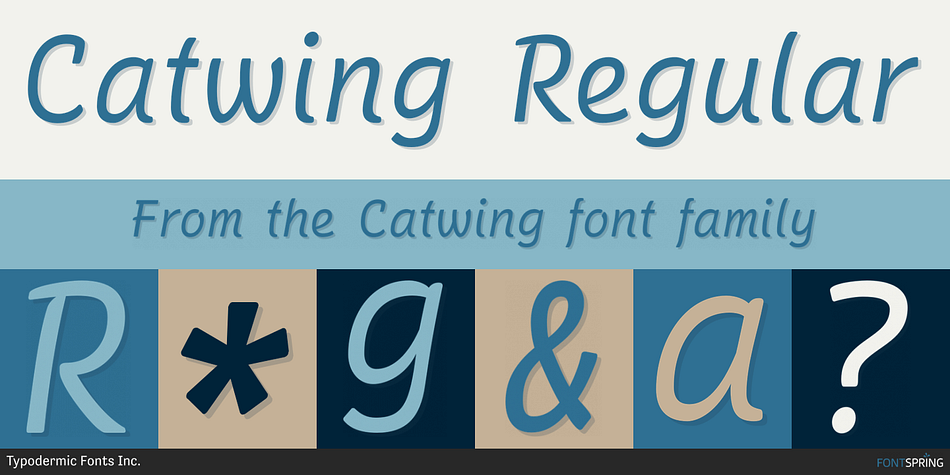
Catwing Regular
Catwing is a hand display and hand drawn font family. This typeface has two styles and was published by Typodermic Fonts Inc.
Introducing Catwing—the typeface that takes inspiration from the old school manual typewriters that dominated offices and homes alike. With its unique blend of sleek and clean lines, Catwing is the perfect typeface for any project that requires a touch of vintage charm.
With its proportionally spaced letters, Catwing sets itself apart from the other scripts out there. It’s a typeface that’s versatile and perfect for all kinds of designs. You can use it in all caps, making it perfect for headlines and titles that need to grab the reader’s attention.
The Regular style of Catwing is a clean and classic design that will add a touch of elegance to any project. But for those who want to add a bit more texture and character, there’s the Fuzz style. This version features a unique texture that gives your project a more authentic and genuine feel.
One of the most exciting features of Catwing Fuzz is its custom letter pairs. These pairs are automatically swapped to produce a more realistic look that’s reminiscent of the old manual typewriters. With Catwing Fuzz, you can add a bit of history and character to your project.
So, whether you’re designing a retro poster or a vintage-inspired logo, Catwing is the perfect choice. It’s a typeface that captures the essence of a bygone era and brings it to the modern world. Give your project that touch of nostalgia with Catwing—the typeface that’s as timeless as the typewriter itself.